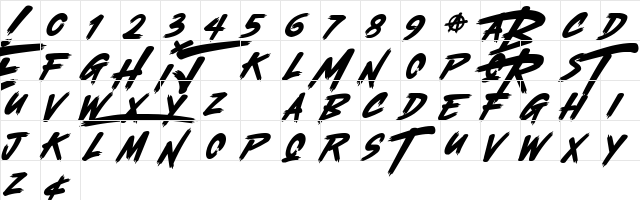
The Midnight (Slant) DEMO Regular
Design Context for The Midnight (Slant) DEMO Typeface
The Midnight (Slant) DEMO is a composed and adaptable typeface that performs quietly and consistently across a wide range of design contexts.